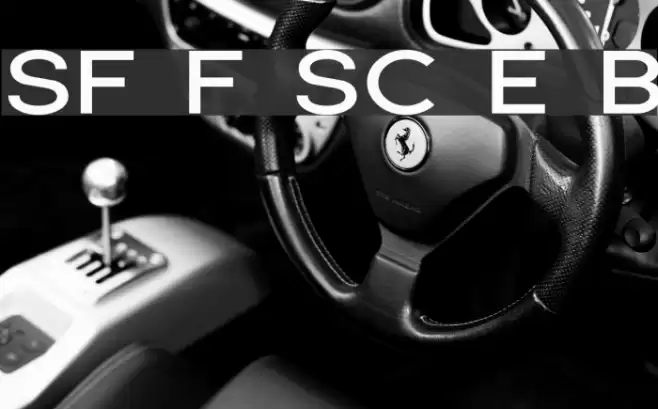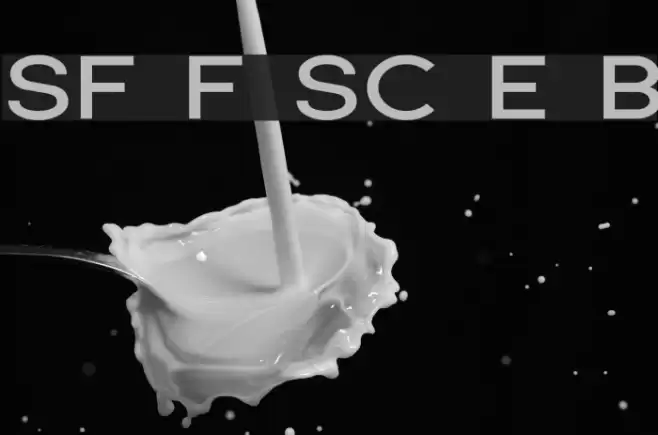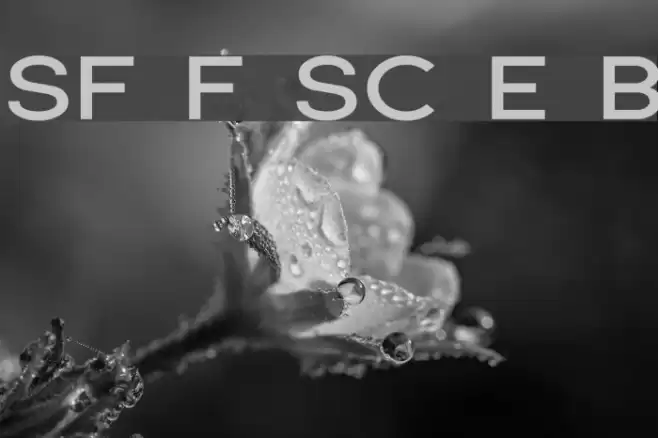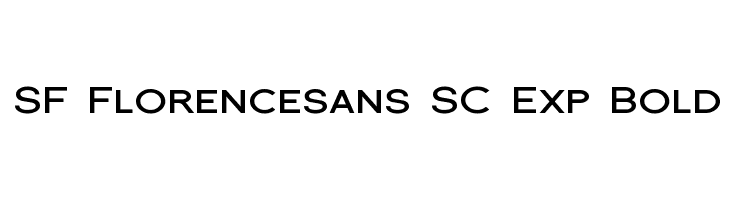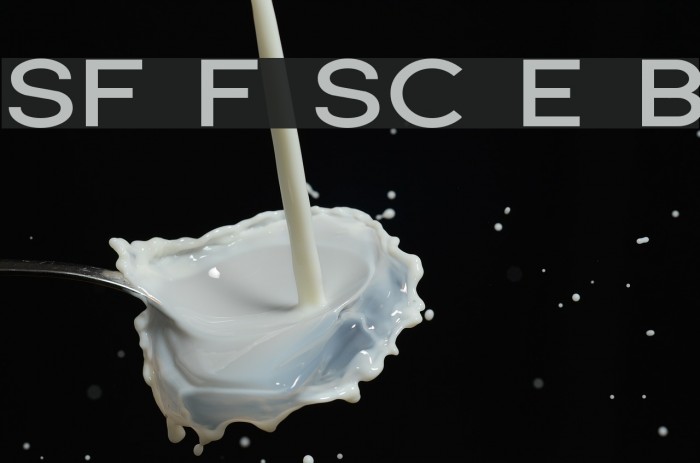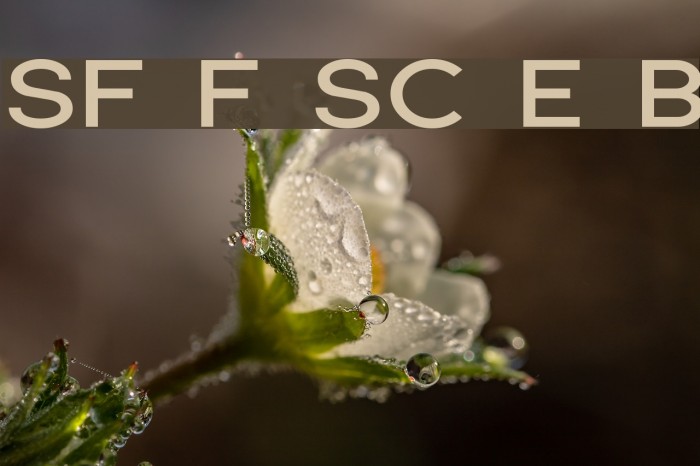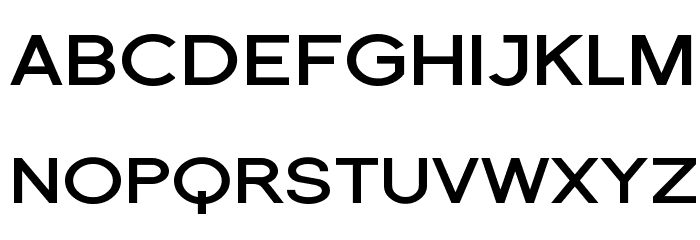
SF Florencesans SC Exp Bold Font
SF Florencesans SC Exp Bold Description
This font features a clean and modern sans-serif style with a bold weight. The characters are evenly spaced and have a consistent stroke width, providing a uniform appearance. The expanded width gives the font a spacious and open feel, making it highly legible. The design is straightforward, with no additional embellishments, which enhances its readability. The font's simplicity and clarity make it suitable for a wide range of applications, from digital to print media. Its boldness ensures that it stands out, making it ideal for headlines and titles.
A bold, expanded sans-serif font with a clean and modern design from Uncategorized fonts.
- Proposed Projects: Ideal for branding, advertising, headlines, and digital media where clarity and impact are essential.
- Width: Expanded
- Use Case: Headlines, Logos, Branding